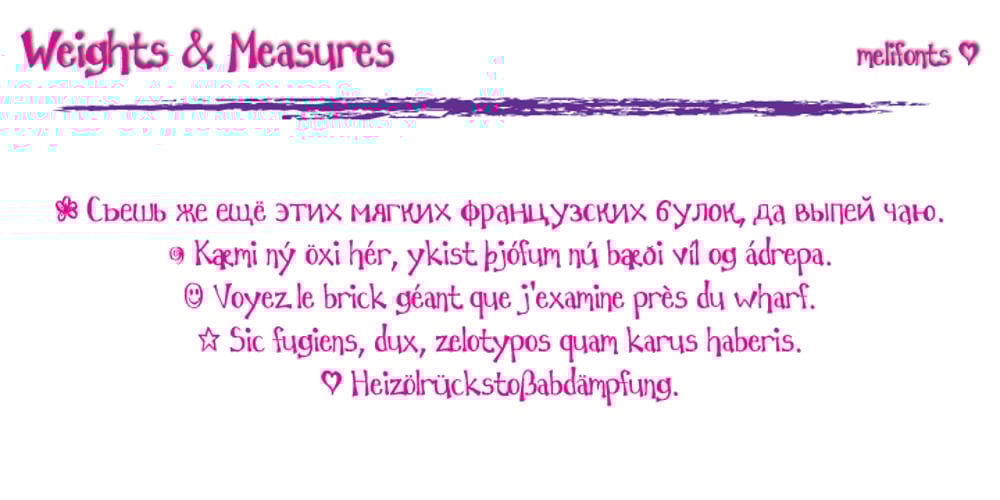
Weights And Measures
Weights And Measures font
Weights And Measures Font Family was designed by Melinda Jeffs and published by melifonts. Weights And Measures contains 1 styles and family package options. Weights and Measures is a great title font that is simple and elegant. It is bold without being overpowering. This style was a favorite for me as I made posters for school projects, wrote notes to friends, and made decorative labels. This font fully supports the following languages: Bulgarian, Danish, Dutch, English, Estonian, Finnish, French, German, Icelandic, Italian, Norwegian, Portuguese, Russian, Spanish, Swedish. If your language is not listed, or if I’ve missed a character in a language I claim to support, please contact me! I will be happy to add characters as needed, and will consider supporting more languages if there is interest.